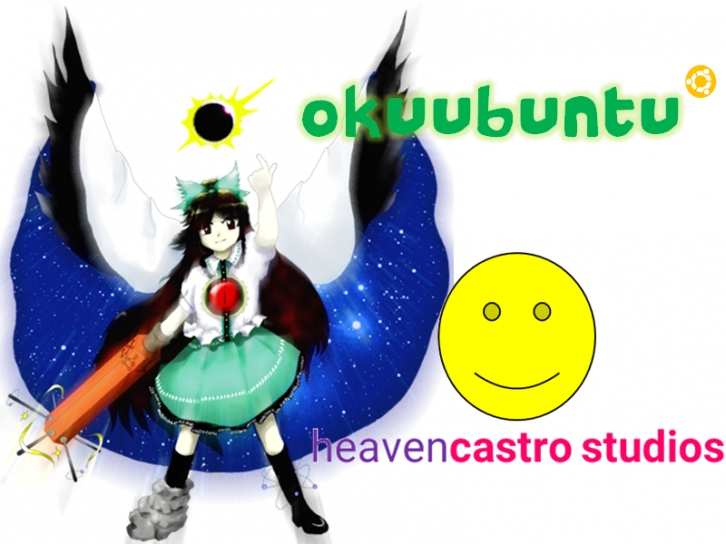
This font is a simple Ubuntu rip-off.
Okuubuntu is a goofy, nukeworthy, whimsy comical sans, but she’s got nuclear like a hell raven with yataragasu.